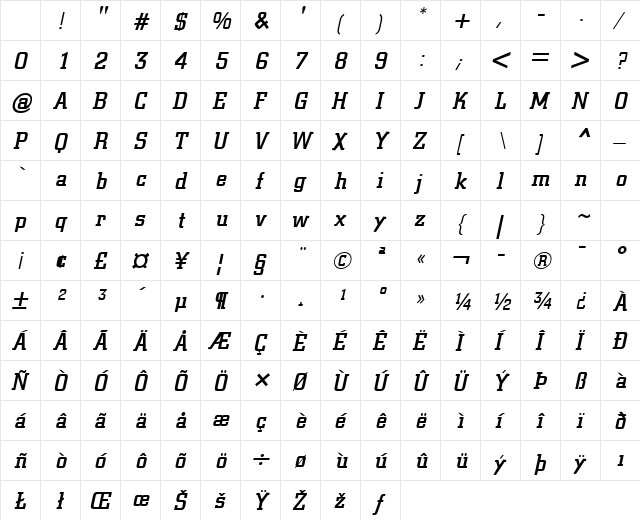
Complete Center City Bold Oblique glyph index. Displaying only characters natively supported by Center City Bold Oblique font.
Center City is a composed and adaptable typeface that performs quietly and consistently across a wide range of design contexts. The slanted form adds forward momentum and visual energy. Its bold stroke weight gives it real presence on the page.